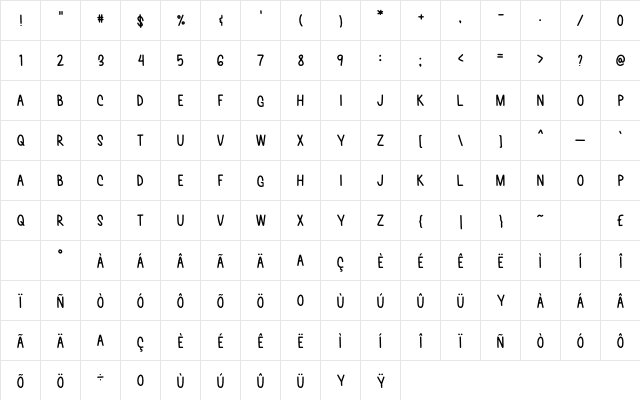
Pumpkin Cheesecake Regular
| Foundry | Dominique Demetz |
| Designer | Dominique Demetz |
Design Context for Pumpkin Cheesecake Typeface
Pumpkin Cheesecake offers clean, dependable letterforms without strong stylistic allegiance, making it a practical choice for designers who need flexibility.